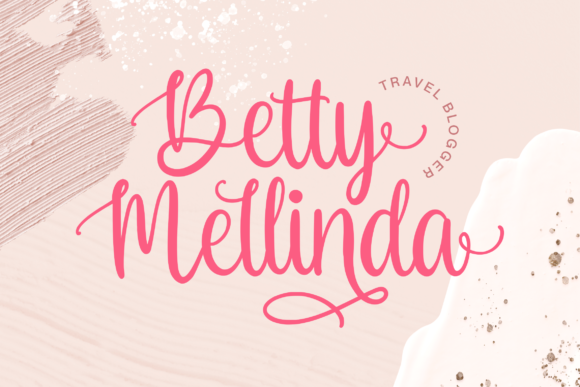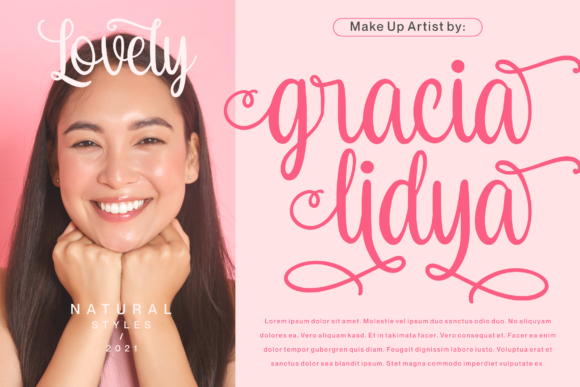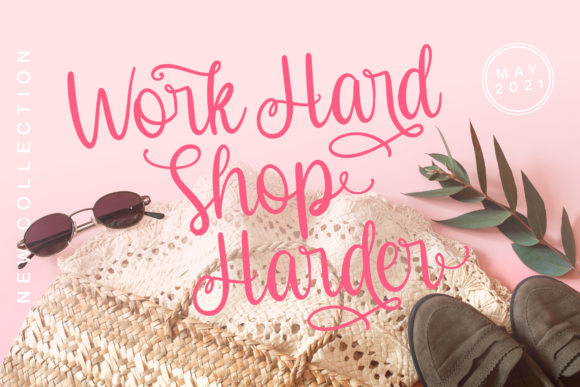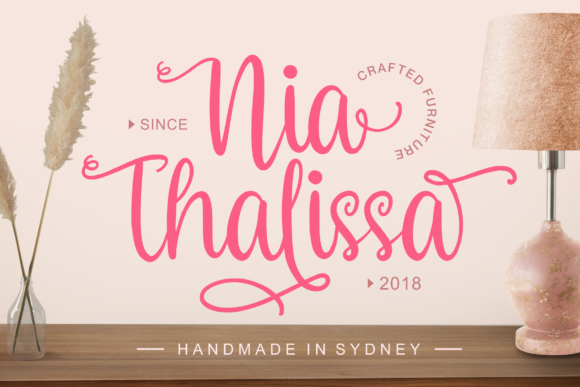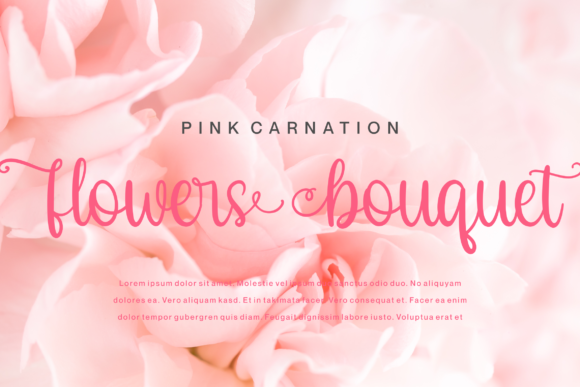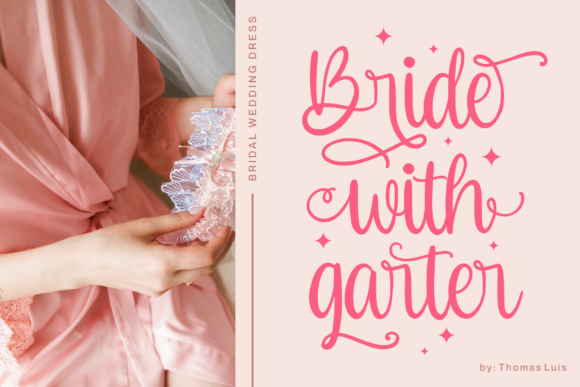
Introducing Goodness Cakes Font: Elevate Your Designs with Elegance
Are you on the lookout for a font that can add a touch of luxury to your design projects? Look no further than Goodness Cakes Font. This beautiful light handwritten font is designed to make a stunning impact, setting your creations apart from the rest. With its unique feel and elegant appearance, Goodness Cakes Font is the perfect choice for designers and crafters seeking to infuse their work with sophistication.
The Unique Charm of Goodness Cakes Font
Goodness Cakes Font boasts a distinctive light handwritten style that exudes elegance and refinement. Its unique feel is characterized by delicate strokes and a charming, organic appearance that gives any design a personal touch. This font is meticulously crafted to ensure that it leaves a lasting impression on viewers, making it ideal for projects where you want to stand out.
Adding Luxury to Your Designs
Luxury is all about attention to detail and creating an impression of high-end quality. Goodness Cakes Font achieves this effortlessly, adding a spark of sophistication to any design project. Whether you’re working on branding, packaging, stationery, or digital content, this font can elevate your work to new heights. Its light and airy feel ensures that your designs feel modern and fresh, while its handwritten nature adds warmth and personality.
Versatility for Designers and Crafters
One of the key advantages of Goodness Cakes Font is its versatility. Designers can use it for a wide range of projects, from corporate branding to personal stationery. Crafters can incorporate it into their handmade products, such as wedding invitations, greeting cards, and DIY crafts. The font’s adaptability makes it a valuable addition to any design toolkit, allowing you to experiment with different styles and applications.
Why Choose Goodness Cakes Font?
- Elegant Appearance: Goodness Cakes Font features a beautiful, light handwritten style that adds an elegant touch to any design.
- Unique Feel: Its distinctive strokes and organic appearance give designs a unique and personal feel.
- Luxury Impact: Perfect for projects that require a touch of luxury and sophistication.
- Versatile: Suitable for a wide range of design projects, from digital content to print materials.
Tips for Using Goodness Cakes Font
To get the most out of Goodness Cakes Font, consider the following tips:
- Pair with Complementary Fonts: Combine Goodness Cakes Font with clean, sans-serif fonts for a balanced and modern look.
- Experiment with Colors: While the font itself adds a touch of elegance, experimenting with different colors can further enhance its impact.
- Adjust Letter Spacing: Fine-tune the letter spacing to ensure optimal readability and aesthetic appeal.
- Use for Headings and Titles: Goodness Cakes Font shines when used for headings and titles, but feel free to experiment with body text for a more personalized look.
Goodness Cakes Font is more than just a font – it’s a design statement. Its beautiful light handwritten style, unique feel, and luxury appeal make it an invaluable resource for designers and crafters. By incorporating Goodness Cakes Font into your projects, you can add a spark of elegance and sophistication that sets your work apart. Whether you’re aiming for a high-end brand look or a personal touch in your crafts, Goodness Cakes Font is your go-to choice for making a stunning impact.